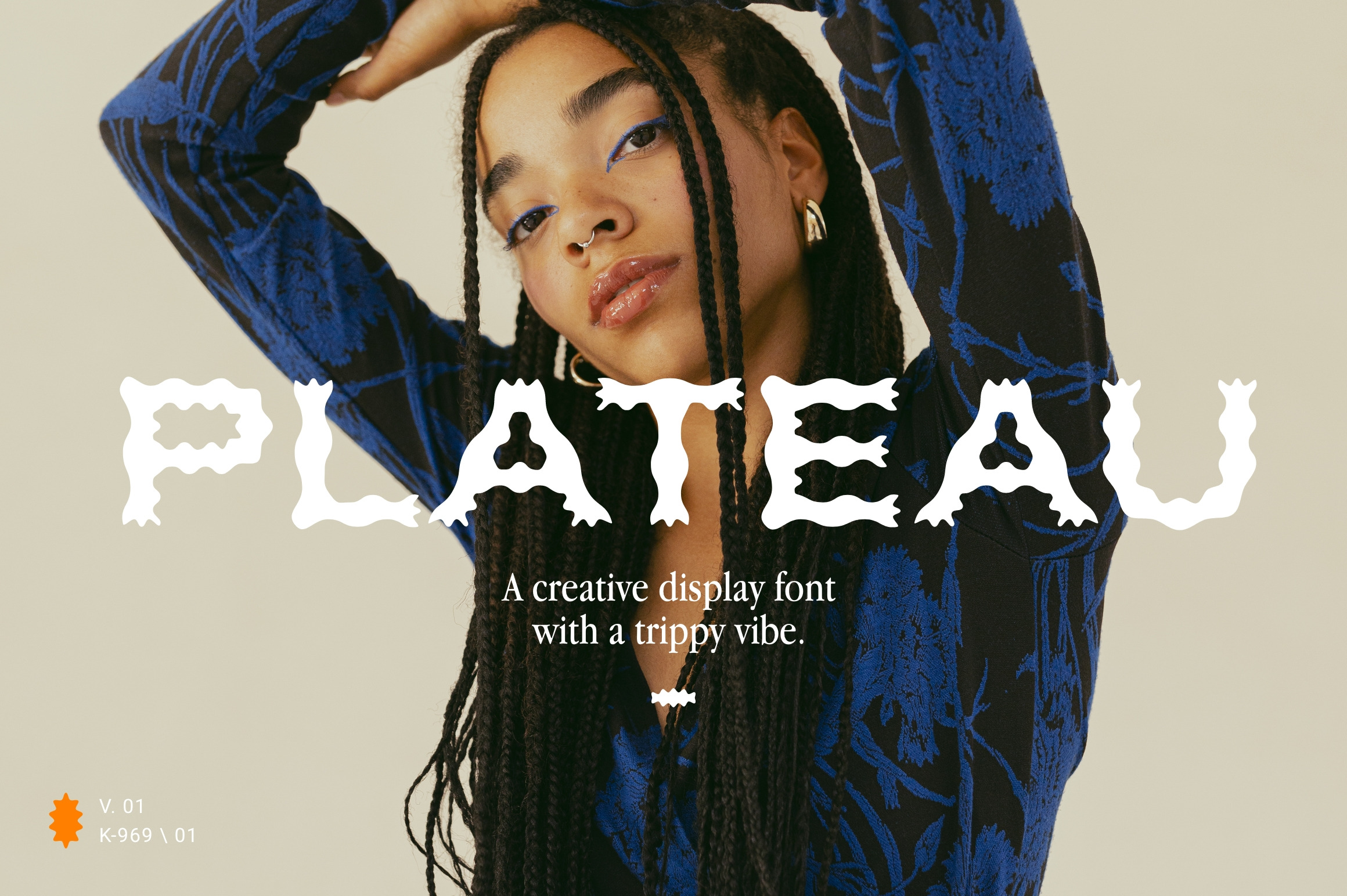
Plateau Font
Plateau's bold and striking letters are infused with a sense of adventure and exploration, perfect for adding a touch of excitement to your projects. Its intricate decorative elements and swirling lines are reminiscent of a psychedelic dream, making it a great choice for projects that require a little bit of extra flair.
Plateau is also highly legible and easy to read. Each letter has been carefully crafted to ensure that your message comes across loud and clear, even with all the intricate details.
Whether you're working on branding, packaging, or editorial design, Plateau is the perfect choice for projects that require a unique and memorable touch. It's a font that's sure to spark your creativity and take your designs to new heights.